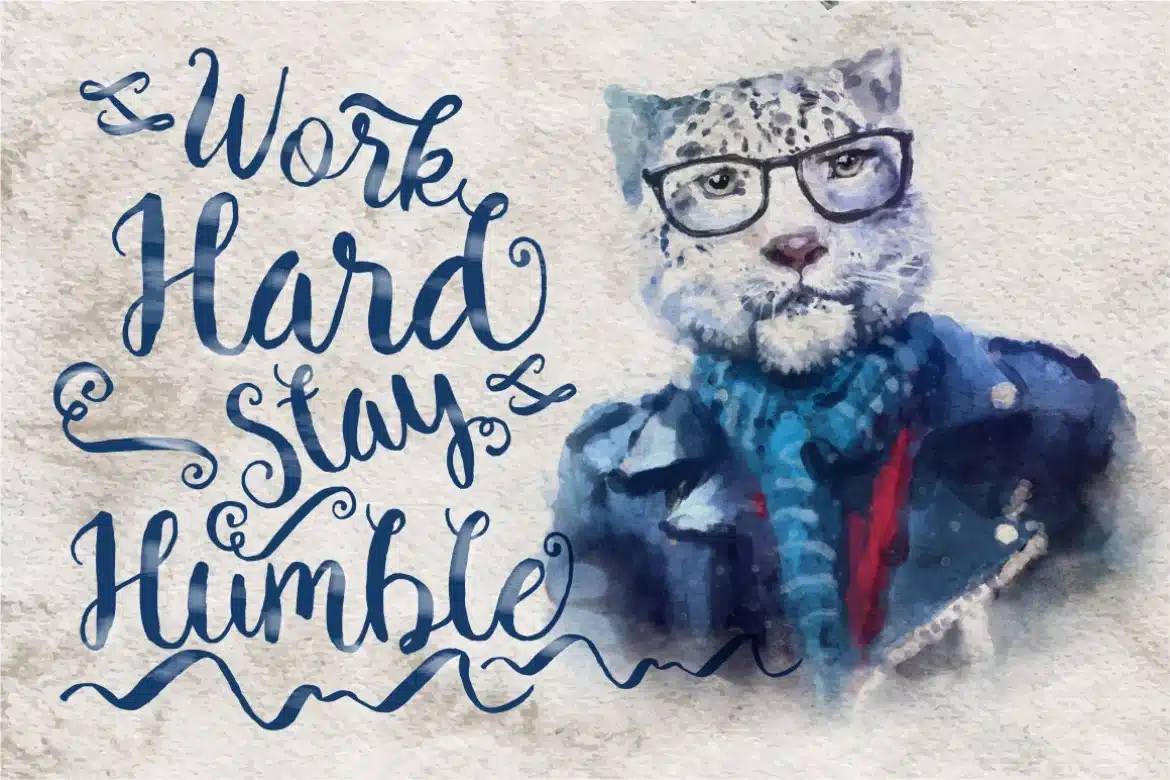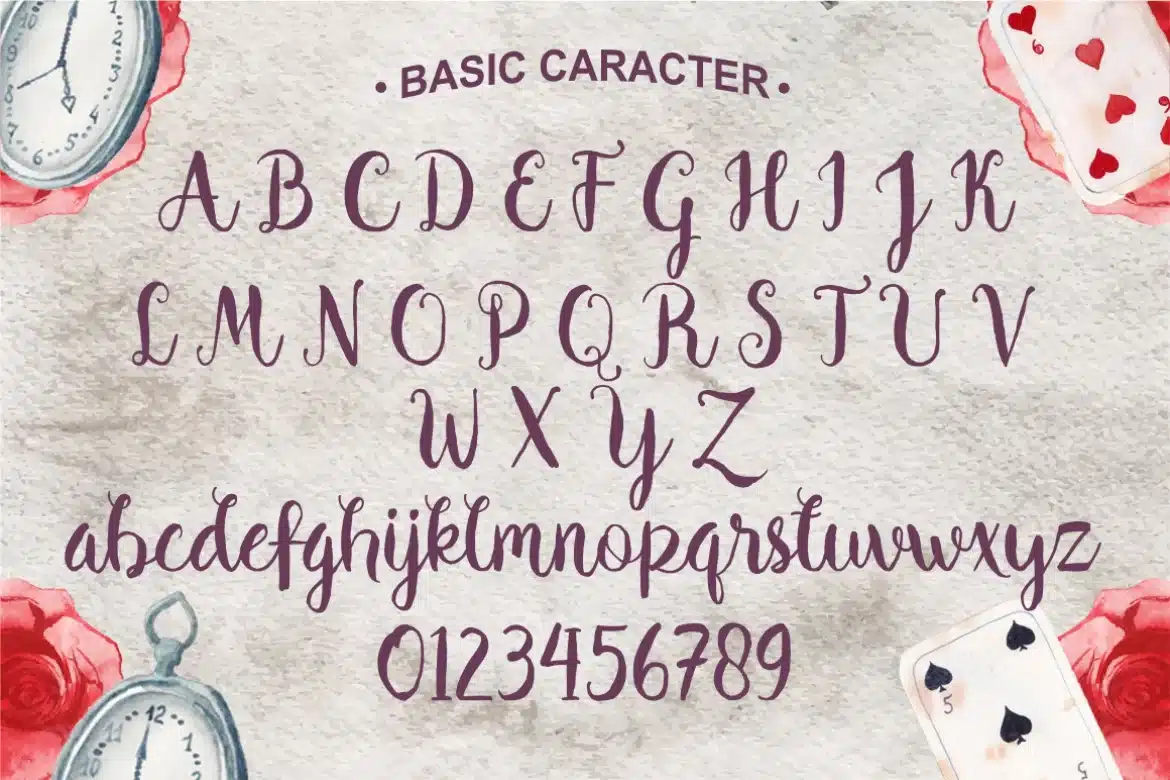
Harrlems Font
The Harrlems Font was made using brush pen,Harlems also has a'messy'skin to get naturally handmade looks and beautiness.. this Font is really suit for your design project and to exposing more Romance fells :)
The Harrlems font also supported with extra character that include :
- Standart Ligatures
- Stylistic Set 01 - Stylistic Set 02